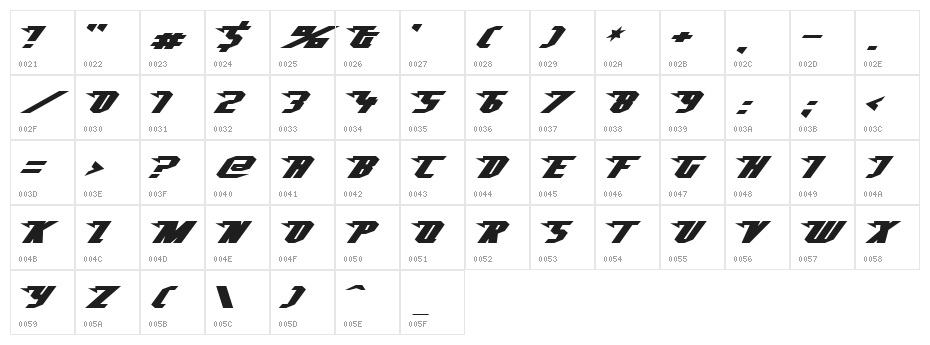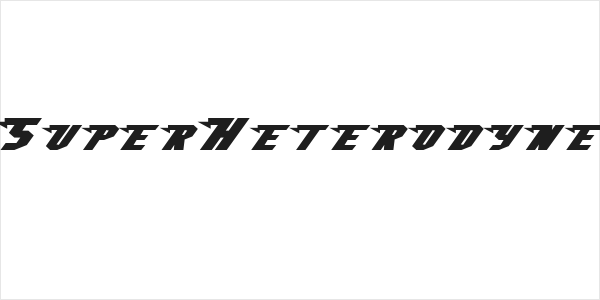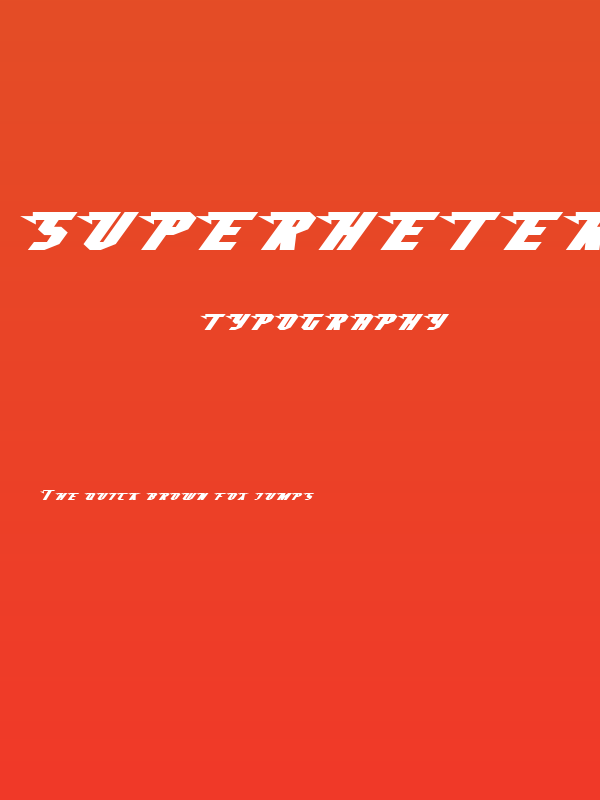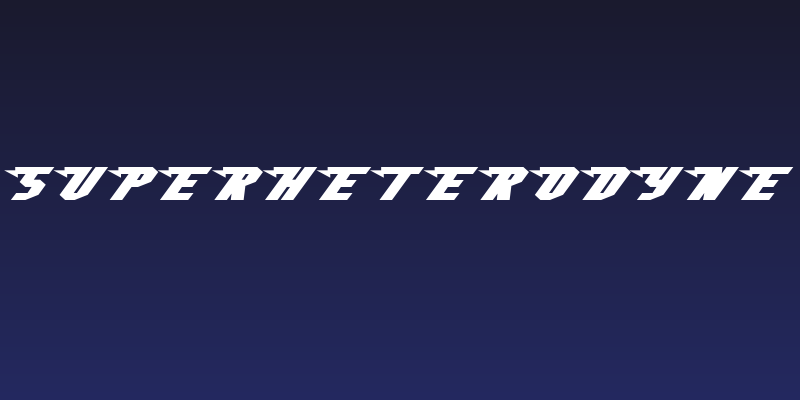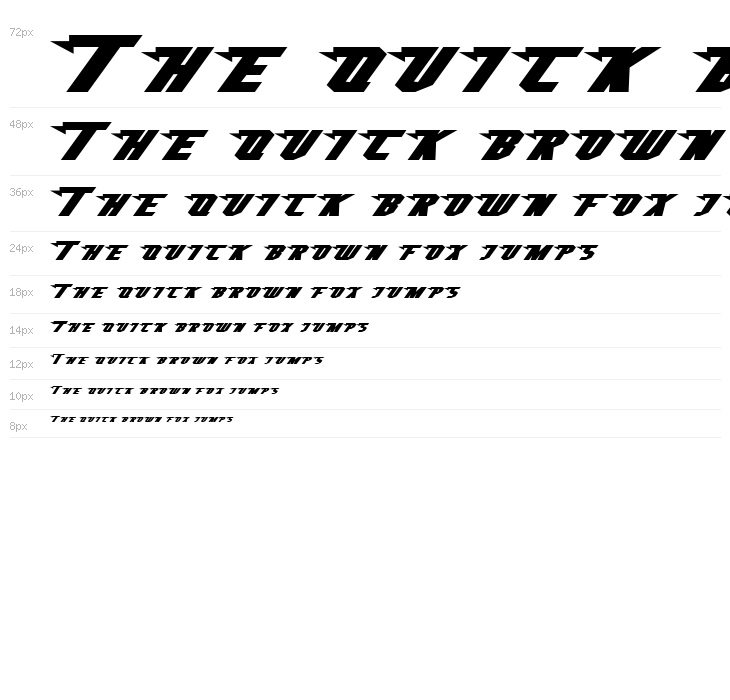
SuperHeterodyne Font
SuperHeterodyne Description
This font features a bold, angular design with a distinct futuristic and dynamic appearance. The characters are sharply cut with a forward-leaning slant, giving a sense of motion and speed. The uppercase and lowercase letters maintain a consistent style, with exaggerated angles and a blocky structure. The numbers and special characters follow the same aesthetic, ensuring uniformity across all glyphs. The font's aggressive and modern look makes it suitable for projects that require a strong visual impact.
Proposed ProjectsIdeal for sports branding, video game titles, sci-fi movie posters, and dynamic logo designs.